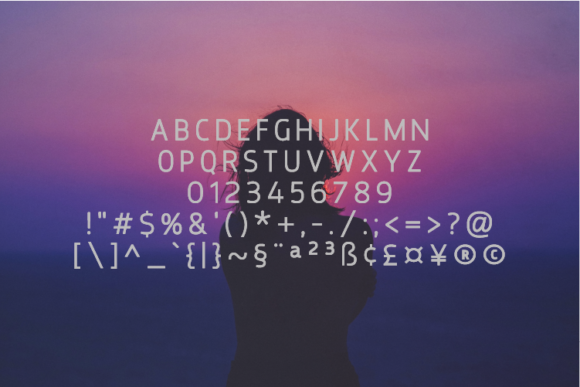
Introduction to Rainlexander Font
Remember that moment when a brilliant idea struck you, and you couldn’t wait to bring it to life? As a designer, you know how crucial it is to have the perfect font to elevate your creative project. It’s the difference between a mere concept and a stunning masterpiece. That’s where the Rainlexander Font comes in – a game-changing sans serif font that exudes modern sophistication and elegance.
Whether you’re working on a design project or simply looking for a high-quality font to add some flair to your designs, the Rainlexander Font is an excellent choice. With its clean lines, smooth curves, and transparent background, this font is a valuable design resource that will help you create visually striking designs that truly stand out. And the best part? You can download it for free, making it an accessible resource for designers of all levels.
Key Features of Rainlexander Font
- High-quality design: The Rainlexander Font is a premium design resource suitable for various creative projects, offering a unique and stylish aesthetic.
- Transparent background: This font features a transparent background, making it easy to integrate into any design, whether it’s a logo, icon, or graphic.
- High-resolution design: The Rainlexander Font is designed at a high resolution, making it perfect for use in print materials, such as business cards, brochures, and posters.
- Unique character set: This font features a unique character set, including various symbols, glyphs, and ligatures, making it an excellent choice for designers seeking a distinctive look.
- Perfect for creative projects: The Rainlexander Font is an excellent design resource for creative projects, such as branding, packaging, and advertising, due to its versatility and high-quality design.
Honest Review: Rainlexander Font
I recently stumbled upon the Rainlexander Font, and I must say it’s a hidden gem in the design world. As a designer, I’m always on the lookout for high-quality design resources that can elevate my creative projects.
What works well: ✨ The Rainlexander Font is incredibly versatile and comes with a transparent background, making it perfect for any design project. The font is also highly customizable, allowing me to tweak it to fit my design needs. The free download option is also a big plus, as it allows designers like me to access it without breaking the bank.
- High-quality design with crisp lines and clean typography
- Highly customizable for tailored design needs
Overall impression: I’m thoroughly impressed with the Rainlexander Font, and I would highly recommend it to designers looking for a reliable and high-quality design resource. Whether you’re working on a commercial project or a personal creative endeavor, this font is sure to deliver.
Tips for Getting the Most Out of Rainlexander Font
For the best results with Rainlexander Font, be sure to pair it with a high-quality design resource, such as a beautiful background image or a unique graphic element. You can also experiment with different font sizes, colors, and arrangements to create a visually appealing design.
Q: Does the Rainlexander Font have a transparent background?
Yes, the Rainlexander Font has a transparent background, making it ideal for creating visually appealing designs with a clean and modern look. This feature also allows for seamless integration with other design elements.